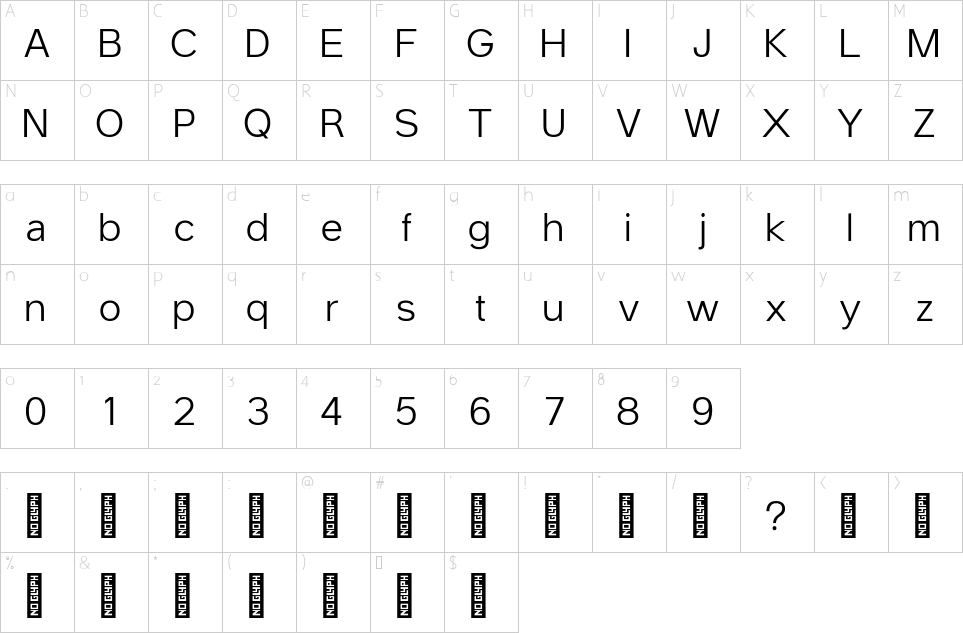
Swinston Sans Font
Designers NoteSwinston Sans is a precision-engineered geometric sans-serif designed to bridge the gap between industrial structure and organic reasoning. Born from the modular logic of logistics and recalibrated for the AI era, it features signature 15° angled terminals that create a rhythmic, aerodynamic aesthetic. It is the ideal typographic system for Tech Startups, UI/UX Design, SaaS Branding, and Modern Editorial. ⚠️ IMPORTANT LICENSE INFORMATION This font file is a DEMO and is strictly for PERSONAL USE ONLY. Allowed: Student work, personal projects, testing. Not Allowed: Client work, logos, apps, websites, or any commercial project. ???? PURCHASE THE FULL COMMERCIAL VERSION To unlock the complete family (Thin to Black), the Variable Font file, and full language support, please visit: Creative Market: https://creativemarket.com/yasireknc/292060764-Swinston-Sans-Variable-Typeface MAlso availabe on MyFonts, YouWorkForThem, and Font Spring! For enterprise inquiries or custom licensing, please contact us directly. Copyright © 2026 Yasir Ekinci. All Rights Reserved. Character MapFile Contents